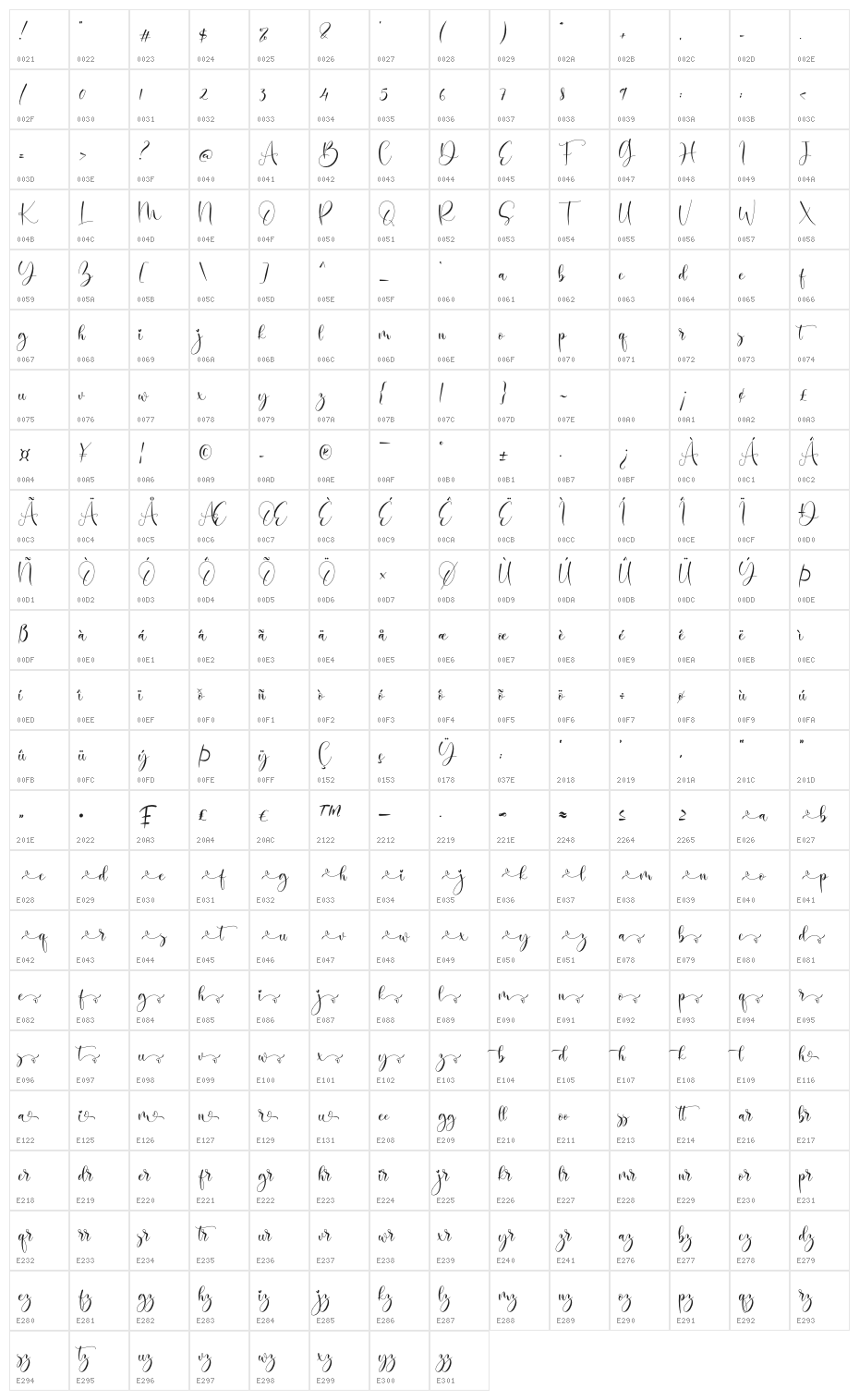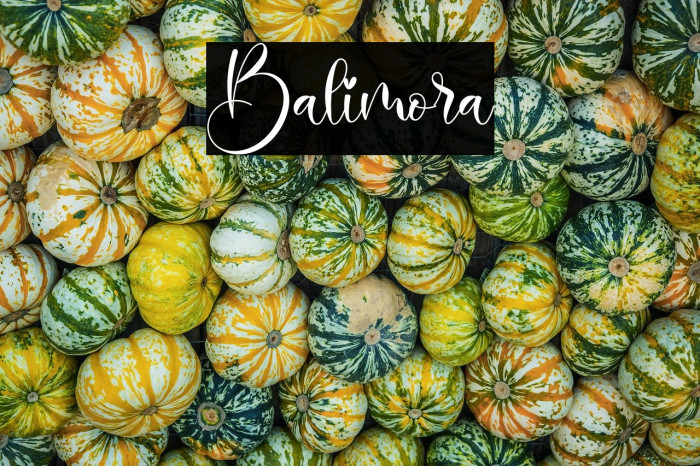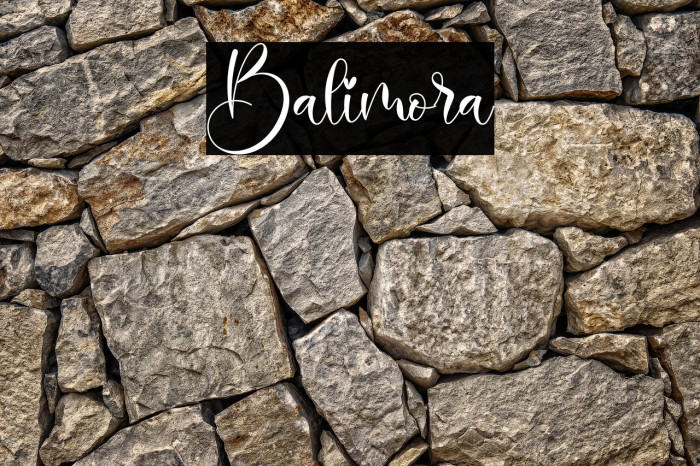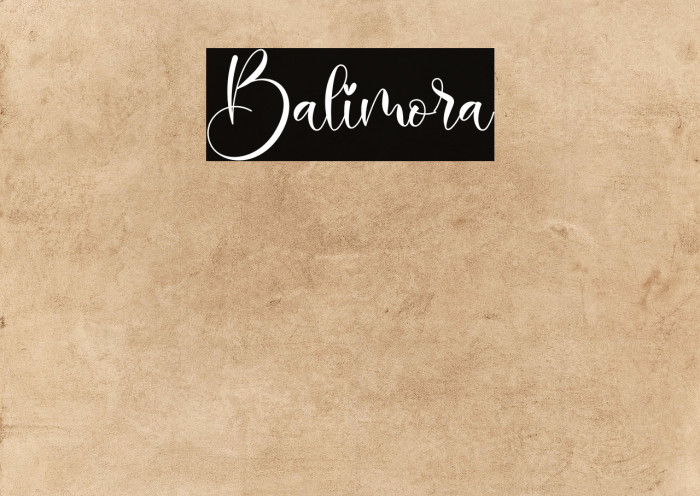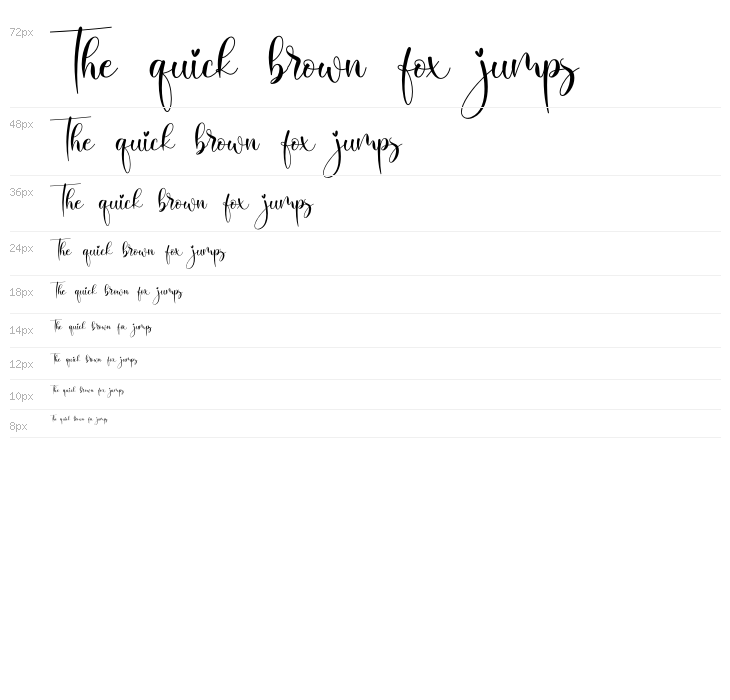
Balimora Font
Balimora Description
This font features an elegant and flowing script style, characterized by its graceful curves and loops. The uppercase letters exhibit a sophisticated flair with elongated strokes and delicate connections, while the lowercase letters maintain a consistent fluidity, enhancing readability. The numerals are designed with a similar aesthetic, offering a harmonious blend with the alphabet. Special characters are thoughtfully crafted to match the overall style, adding versatility to the font. The design is both artistic and functional, suitable for a variety of creative applications.
| Overall Style | Elegant |
| Use Case | Logos, Invitations, Decorative text |
| Proposed Projects | Ideal for wedding invitations, greeting cards, branding, and elegant logo designs. |